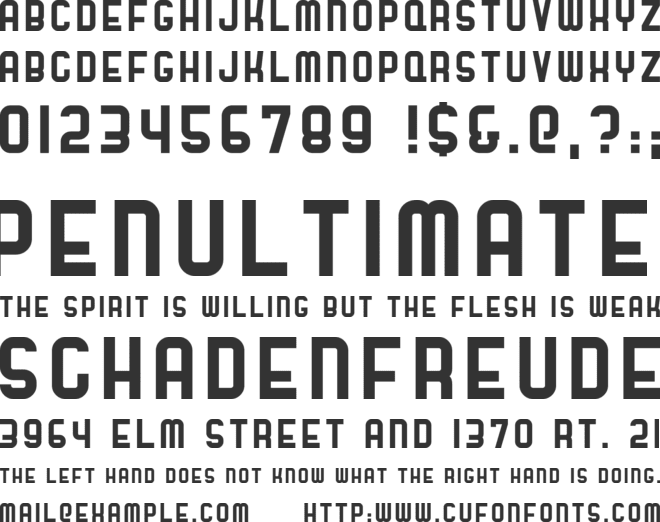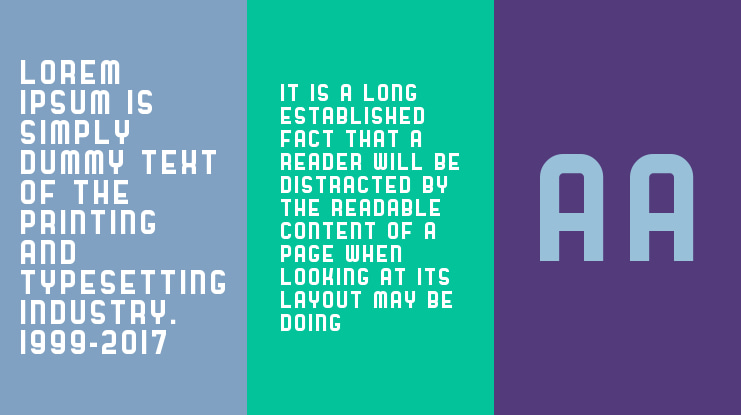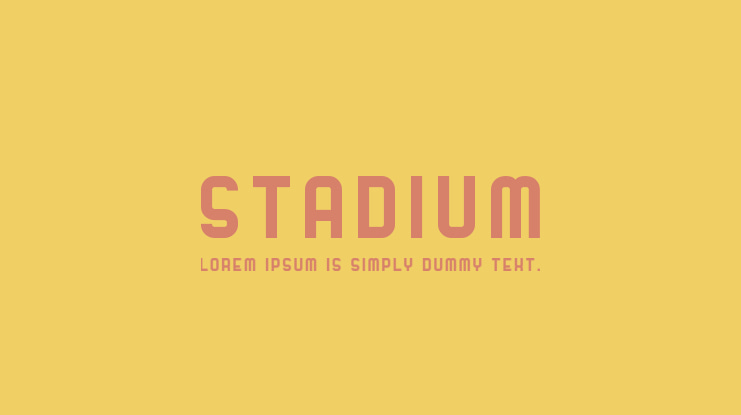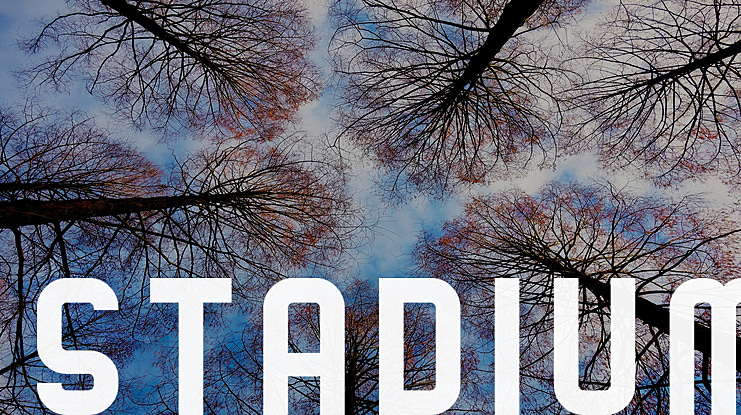
Stadium Font
Stadium is a classic, geometric, art deco font. It is based on lettering found on an old building. It works well for titles that require a classy presentation.